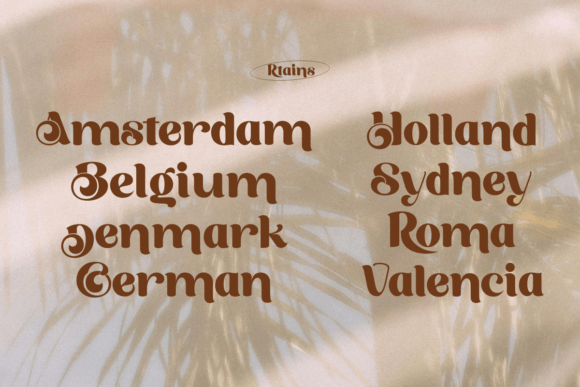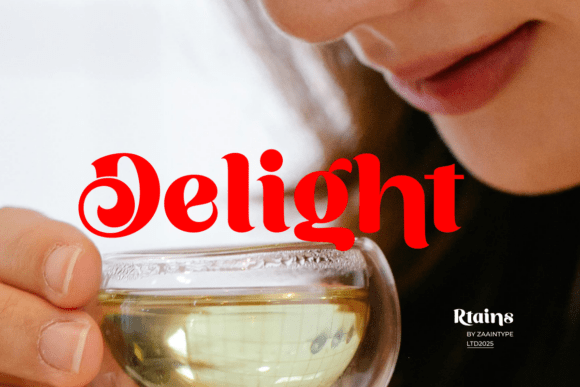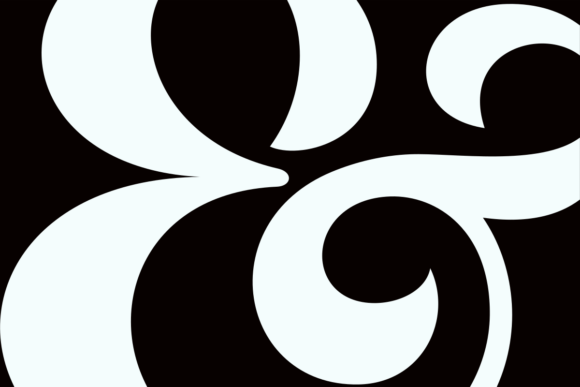
Introduction to Rtains Font
Rtains is a serif typeface with elegant contrast between thick and thin strokes, available in two styles: Regular and Oblique.
Clean yet full of character, Rtains is designed to bring a modern, professional, and sophisticated feel to every letterform Perfect for branding, editorials, and digital designs that need a bold touch with a warm personality.
Key Features of Rtains Font
Why Choose Rtains Font?
Rtains Font offers exceptional quality and versatility, making it a valuable addition to your design toolkit. Whether you’re creating for personal projects or commercial use, Rtains Font delivers professional results.